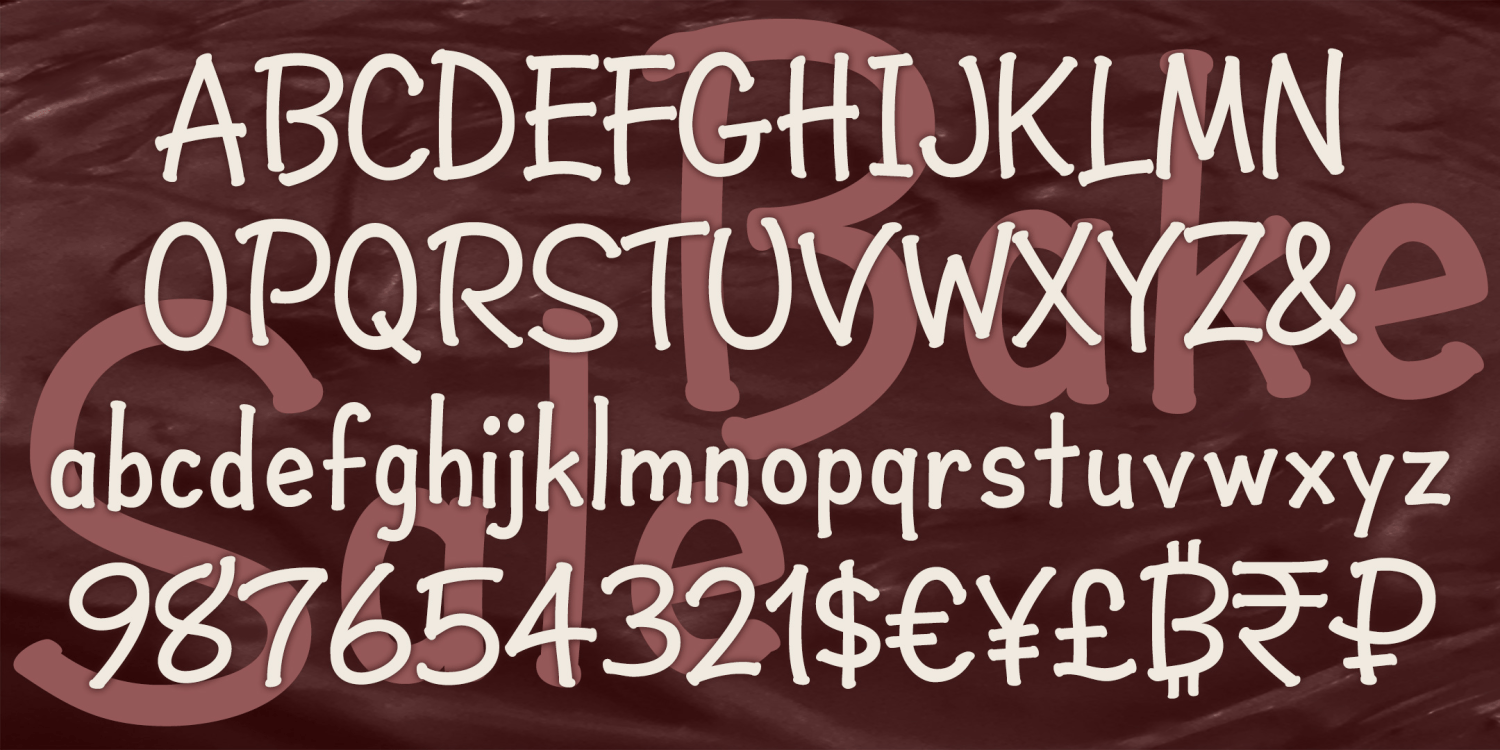
Bake Sale
Bake Sale is a fun font that feels like marker lettering. With the rhythm of handwritten "ball and stick" letters, Bake Sale could suggest a kid's writing or writing for a kid: simple, direct, and fun. Instead of serifs, Bake Sale has little dots, like you get when you pause with a permanent marker.
The Bake Sale font family includes 363 glyphs.